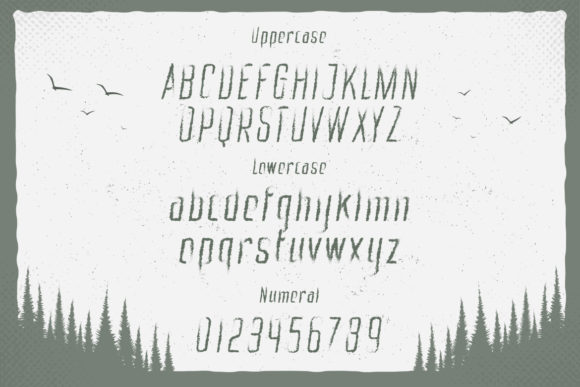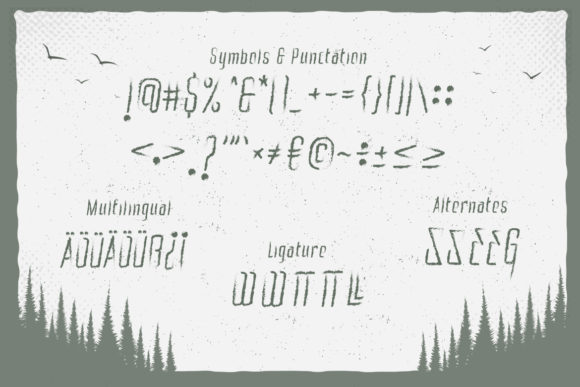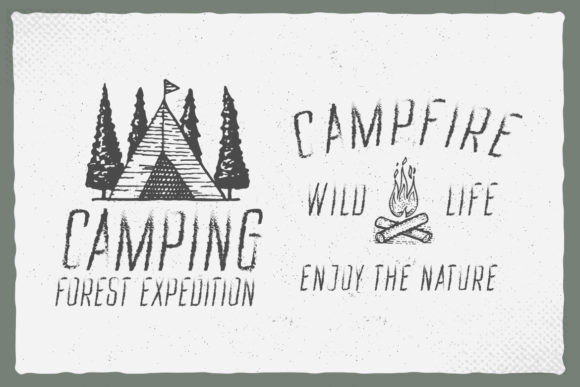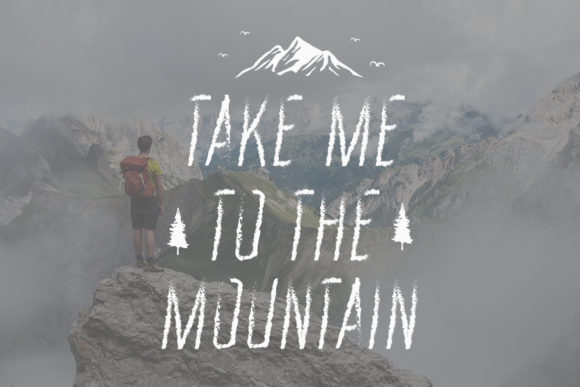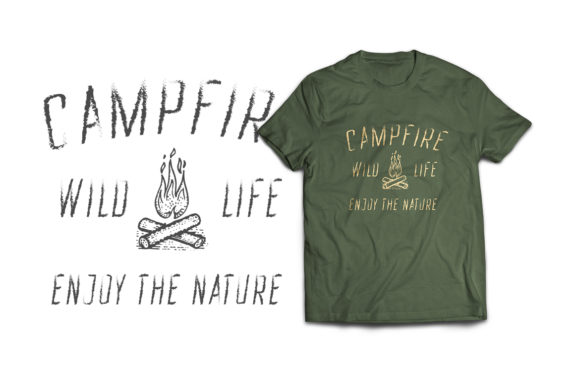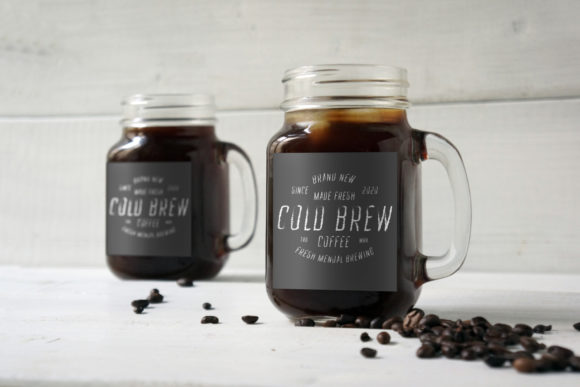
Introduction to Mystic Forest Font
Mystic Forest is a unique and gloomy display font.
A bit spooky, this font will add a dramatic touch to each of the designs you wish to create .
Key Features of Mystic Forest Font